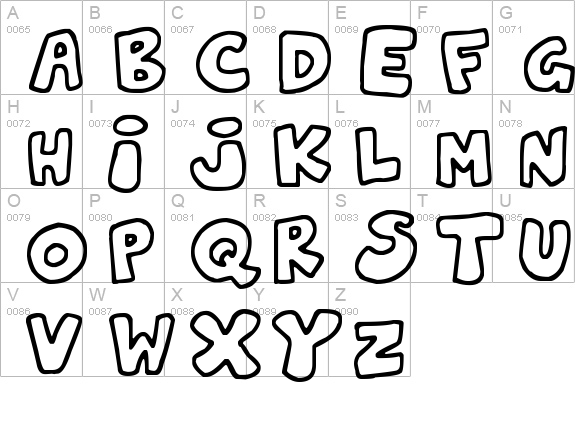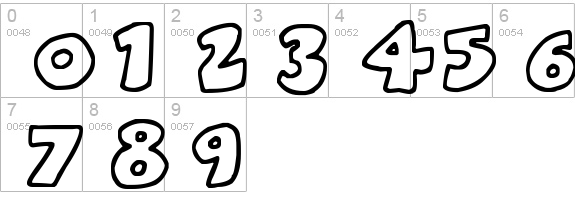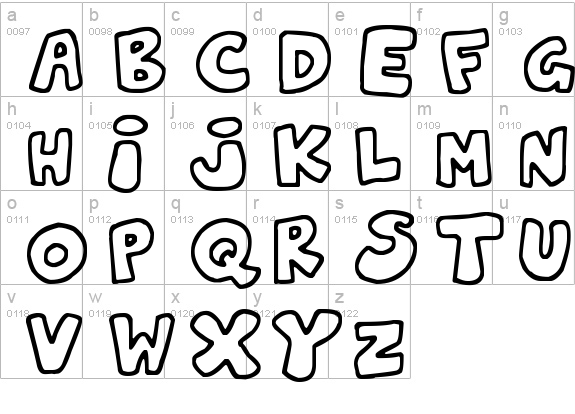
Jelly Wobblers Font Details
Jelly Wobblers is a free for personal use font in the General > Outline category, designed by Darrell Flood. It has been downloaded 82 times and is available for Windows, Mac and Linux.
Jelly Wobblers font is a whimsical and playful typeface that will add a touch of fun to any design project. With its bouncy letters and rounded edges, Jelly Wobblers exudes a sense of joy and creativity. This font is perfect for children's books, party invitations, or any project that needs a lighthearted and cheerful touch.